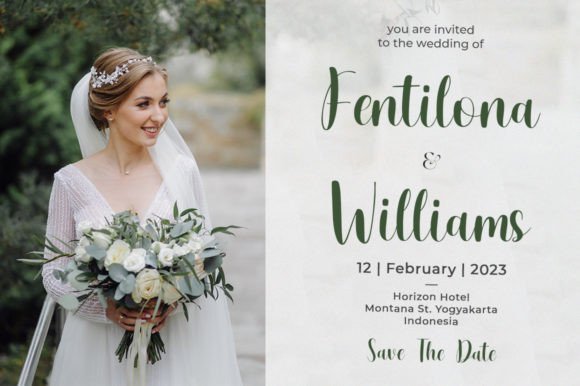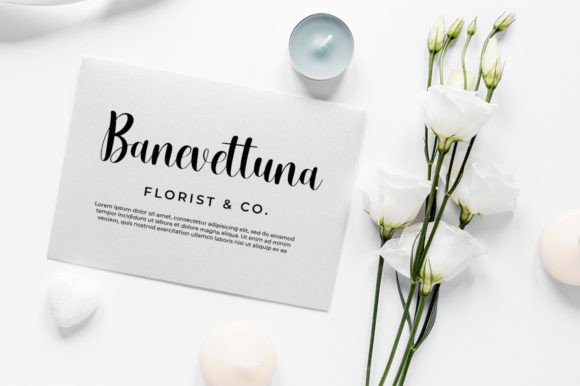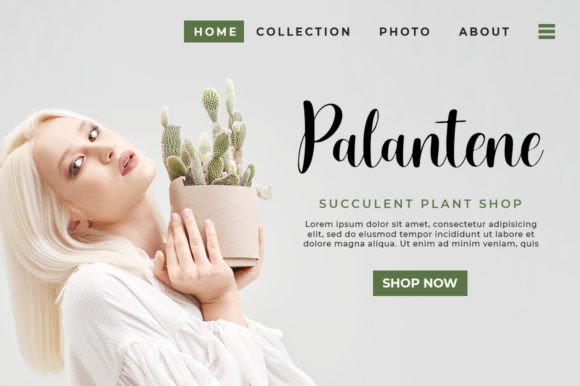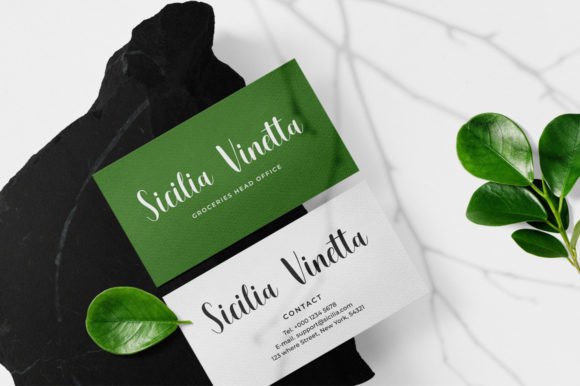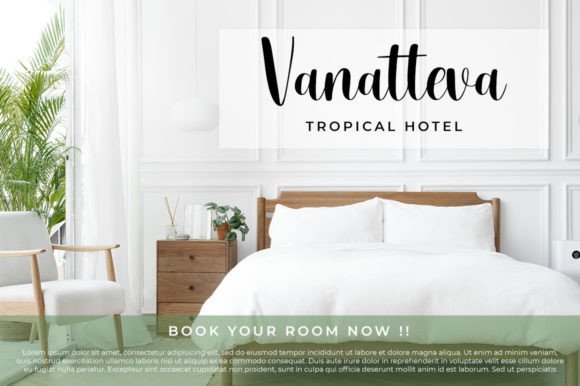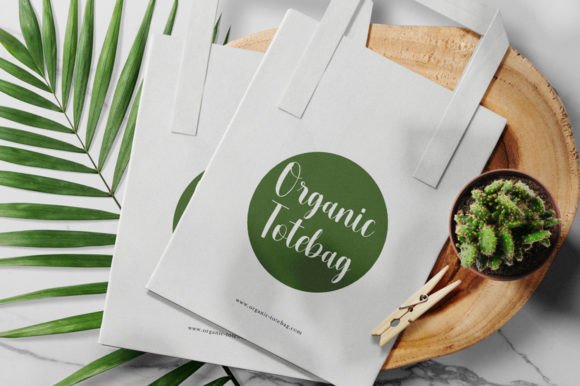
Introduction to Sivalani Font
Have you ever stared at a blank canvas, longing for the perfect font to bring your creative project to life? The blank page stares back, waiting for that special something that will set your art apart from the rest. For designers, finding the right font can be the key to unlocking a truly unique and captivating design. This is where the Sivalani Font comes in – a beautiful script font style that offers an elegant, classy, and modern look that’s perfect for adding a personal touch to your latest creation.
With its gorgeous typography and high-quality design, the Sivalani Font is a valuable resource for designers looking to elevate their work. Whether you’re working on a logo, invitation, or social media post, this versatile font is sure to impress. Plus, with its transparent background, you can easily integrate it into any design without distractions.
Key Features of Sivalani Font
- High-quality font for creative projects: The Sivalani Font is a premium design resource ideal for use in various creative projects, including graphic design, digital art, and publishing.
- Transparent background: This font features a transparent background, allowing for seamless integration with any design or background.
- High-resolution design: This font is designed at a high resolution, ensuring crisp and clear typography even at large sizes.
- Unique script font style: The Sivalani Font features a unique and elegant script font style, adding a touch of sophistication to any design project.
Honest Review: Sivalani Font
I recently stumbled upon the Sivalani Font and was eager to give it a try. As a designer, I’m always on the lookout for high-quality fonts to enhance my creative projects. And I’m happy to report that the Sivalani Font definitely delivers.
One of the standout features of the Sivalani Font is its elegant and sophisticated design. The font is perfect for anyone looking to add a touch of luxury to their design work. The transparent background and clean lines make it a great addition to any design resource.
- ✨ Elegant design that’s perfect for luxury and high-end projects
- ✨ High-quality font that’s ideal for print and digital use
- ⚠️ Limited font styles available (only one style currently offered)
- ⚠️ Not suitable for casual or playful projects (best suited for formal and professional work)
Overall, I’m impressed with the Sivalani Font and would definitely recommend it to designers looking for a high-quality font to enhance their creative projects.
The Sivalani Font is a high-quality design resource that offers a unique and creative touch to your projects. With its transparent background, it’s perfect for designers looking to add a touch of elegance to their work.
The Sivalani Font is perfect for a variety of creative projects, including graphic design, digital art, and even web design. Its high-quality design and transparent background make it a great choice for designers looking to add a touch of sophistication to their work.
Tips for Getting the Most Out of Sivalani Font
To get the most out of the Sivalani Font, use it in combination with other design elements, such as images and shapes. You can also experiment with different font sizes and styles to create a unique and eye-catching design.